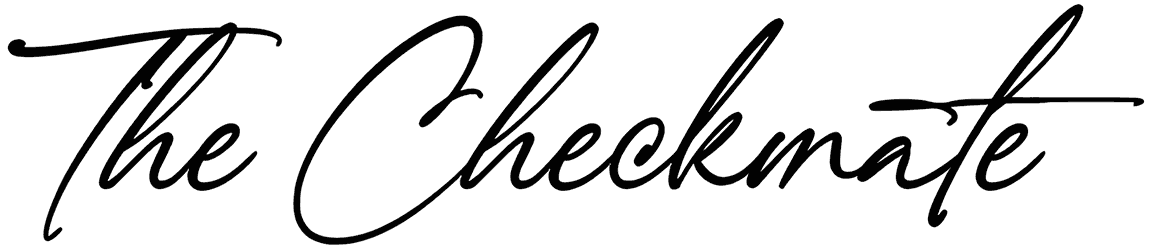
The Checkmate Font
Beyond your imagination, you can expect The Checkmate to bring a sense of delicacy, softness, precision, and drama to your creative ideas, including posters, business cards, flyers, gift cards, and diplomas that require a personalized touch.
This script font comes with a cursive design that dances along the baseline, thus reading some of its characters might be a bit tricky. If you really want to pick up this handwritten font, it would be better to neglect not fully supporting numbers.